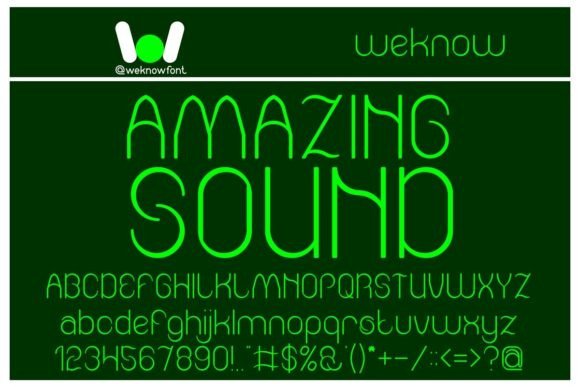
Prepare yourself for an auditory sensation! Amazing Sound Font, a revolutionary display font, is ready to captivate your creative world like never before. Experience the harmony of visuals and sound as you witness the unique fusion of typography and music. Unleash your imagination and create designs that resonate with the rhythm of your soul.
With its dynamic curves and electrifying energy, Amazing Sound Font is the maestro of digital comics. Dive into the realm of sequential storytelling and bring your characters to life with a symphony of visual flair. Each letterform dances off the page, embodying the essence of motion and energy. Let your comic creations sing with the vibrancy of Amazing Sound Font.
But Amazing Sound Font is not limited to the world of digital comics. Its versatility extends far beyond the comic book pages. With its bold and striking nature, it effortlessly commands attention in logos, logotypes, headlines, and corporate identities. Its presence is undeniable, leaving a lasting impression that lingers in the minds of your audience.
Whether you're a seasoned designer or a creative enthusiast, Amazing Sound Font is your muse, your symphony of artistic expression. Let the notes of inspiration flow through your fingers as you craft designs that echo the rhythm of your heart. Dive into the depths of creativity and let Amazing Sound Font orchestrate a masterpiece.